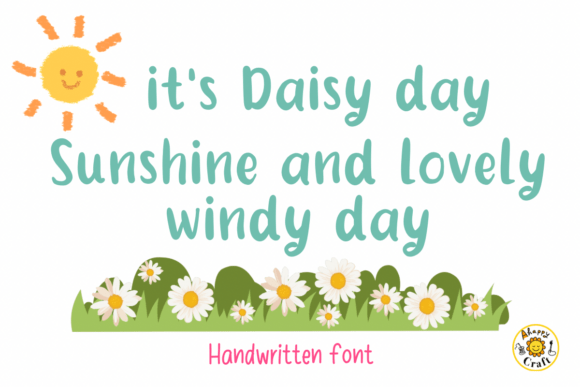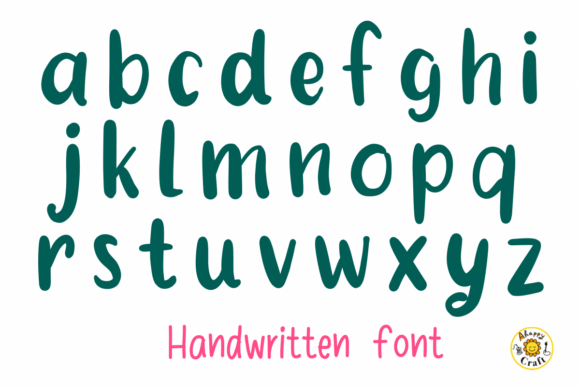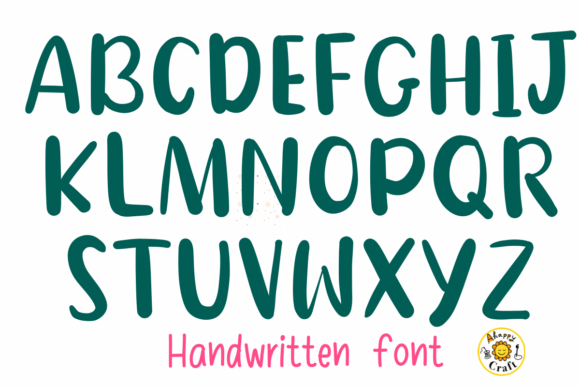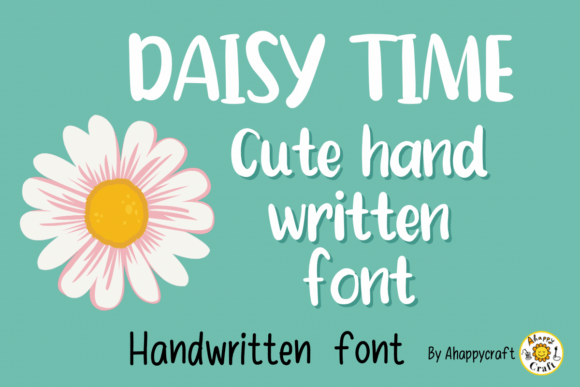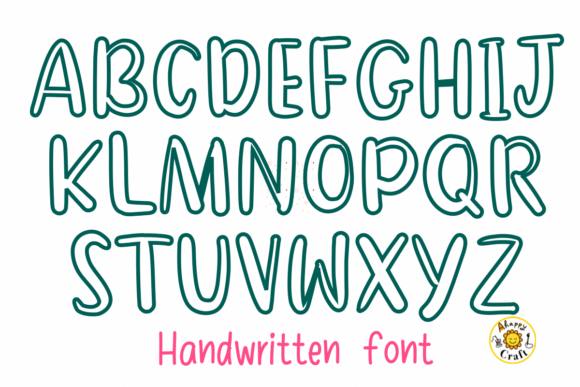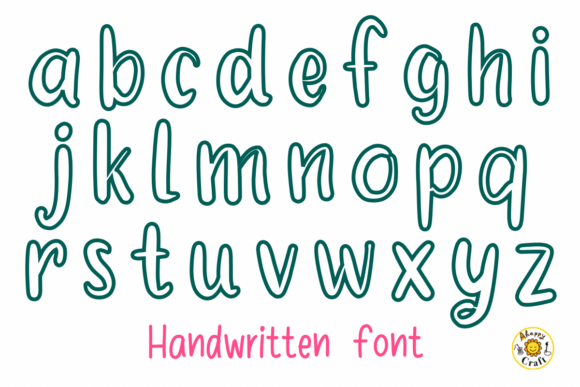
Introducing Daisy Time Font: The Cheerful Charm of Handcrafted Elegance
Are you looking for a font that can add a touch of warmth and playfulness to your designs? Look no further than Daisy Time, a delicately handcrafted font that exudes an inviting charm. This unique font is perfect for designers, crafters, and students who want to bring a fresh and creative spin to their projects.
The Playful yet Readable Handwriting Style of Daisy Time
Daisy Time boasts a playful yet readable handwriting style that captivates viewers and effortlessly brings an air of freshness and creativity to any project. Its delicate and handcrafted design makes it perfect for a wide range of applications, from logos and branding to Goodnote content and student projects.
One of the standout features of Daisy Time is its ability to balance playfulness with readability. The font’s handcrafted design gives it a personal and approachable feel, making it perfect for projects that require a touch of warmth and personality. At the same time, its readability ensures that your message is communicated clearly and effectively.
Perfect for Distinctive Logos, Goodnote Content, and Student Projects
Daisy Time is particularly useful for developing distinctive logos that stand out from the crowd. Its unique and handcrafted design makes it perfect for businesses and brands that want to establish a strong visual identity. The font’s playfulness and creativity also make it ideal for Goodnote content, such as bullet journaling and digital planning.
Students can also benefit from using Daisy Time in their projects. Whether you’re working on a school assignment or a personal project, this font can add a touch of personality and creativity to your work. Its readability and handcrafted design make it perfect for presentations, reports, and other academic projects.
Experience the Joy of Handcrafted Elegance
With Daisy Time, you can experience the joy of handcrafted elegance in your designs. This unique font pair is perfect for designers, crafters, and students who want to add a touch of warmth and personality to their work. Its playful yet readable handwriting style, combined with its convenient formats, make it an ideal choice for a wide range of projects.
Tips for Using Daisy Time in Your Designs
Here are some tips for using Daisy Time in your designs:
- Use Daisy Time as a headline font to add a touch of personality and creativity to your designs.
- Pair Daisy Time with other fonts to create a unique and visually appealing combination.
- Use Daisy Time in your Goodnote content to add a personal and approachable touch.
In conclusion, Daisy Time is a unique and handcrafted font that can add a touch of warmth and playfulness to your designs. Its playful yet readable handwriting style, combined with its convenient formats, make it an ideal choice for designers, crafters, and students. Whether you’re working on a logo, Goodnote content, or a student project, Daisy Time is the perfect font to bring a fresh and creative spin to your work.